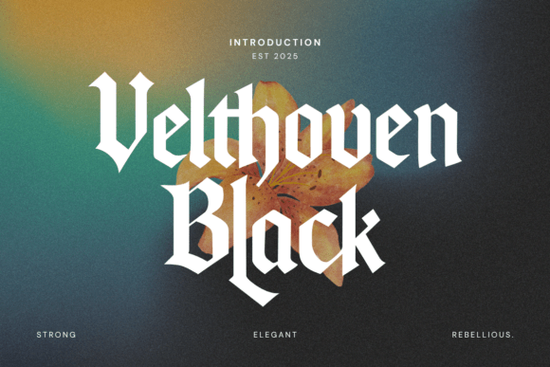
If you're looking for a font that blends the rich history of blackletter with a modern, minimalist twist, Velthoven Black Font is an excellent choice. This typeface offers a unique fusion of traditional Fraktur calligraphy and contemporary design, making it a versatile option for a wide range of creative projects.
What Makes Velthoven Black Stand Out?
Velthoven Black is not just another blackletter font; it's a carefully crafted blend of historical and modern design elements. The font features high stroke contrast and angular terminals, which give it a strong, commanding presence. Yet, it also has soft, rounded spurs that add a touch of elegance and readability. This balance makes it perfect for both bold and subtle design applications.
Historical Roots and Modern Design
The inspiration for Velthoven Black comes from the classic Fraktur calligraphy, a style that was widely used in medieval manuscripts and early printed books. However, this font doesn't stop at nostalgia. It incorporates sleek, geometric outlines and crisp details, giving it a fresh, contemporary feel. This combination of old and new creates a visually striking and versatile typeface.
Ideal Use Cases for Velthoven Black
Velthoven Black is incredibly adaptable and can be used in a variety of design contexts. Here are some of the most popular use cases:
- Music Branding Collaterals and Posters: The bold and edgy look of Velthoven Black makes it perfect for music-related designs, from album covers to concert posters.
- High Fashion Editorials: Its sleek, modern aesthetic complements high fashion and luxury branding, adding a touch of sophistication and edge.
- Product Wrapping and Packaging: Use Velthoven Black to create eye-catching labels and packaging that stand out on the shelf.
- Tattoo and Streetwear Logos: The font's strong personality and legibility make it ideal for creating memorable logos and graphics for streetwear and tattoo art.
- Book Covers and Labels: Add a unique and stylish touch to book covers and labels, especially those with a gothic or vintage theme.
How to Incorporate Velthoven Black into Your Designs
Incorporating Velthoven Black into your designs is straightforward, but there are a few tips to keep in mind to make the most of its unique qualities:
- Balance Boldness with Simplicity: While Velthoven Black is bold, it's important to balance it with simpler, more minimalistic elements to avoid overwhelming the design.
- Experiment with Colors: Play with different color schemes to highlight the font's high stroke contrast and angular features. Darker, richer colors often work well, but don't be afraid to try something more vibrant.
- Combine with Other Fonts: Pair Velthoven Black with more neutral, sans-serif fonts to create a harmonious and balanced design. For example, you might consider using Western Ridge Font for a complementary, yet distinct, visual effect.
Why Choose Velthoven Black for Your Next Project?
Velthoven Black is a standout choice for designers, crafters, print-on-demand sellers, and small businesses who want to add a unique and powerful element to their designs. Its blend of historical and modern aesthetics, along with its high legibility and adaptability, make it a versatile and reliable font. Whether you're working on a music poster, a high fashion editorial, or a product label, Velthoven Black can help you achieve a distinctive and impactful look.
Practical Checklist for Using Velthoven Black
- Understand the Font's Characteristics: Familiarize yourself with Velthoven Black's high stroke contrast, angular terminals, and rounded spurs.
- Choose the Right Context: Consider where and how you will use the font. Is it for a music poster, a fashion editorial, or a product label?
- Balance with Other Elements: Combine Velthoven Black with simpler, more minimalistic design elements to create a balanced and harmonious composition.
- Experiment with Colors and Combinations: Try different color schemes and font pairings to find the best match for your project.
- Test for Legibility and Impact: Ensure that the font is legible and makes the desired impact in your final design.
By following these tips and incorporating Velthoven Black into your design toolkit, you can create visually stunning and impactful projects that stand out. Give it a try and see how it transforms your next design.